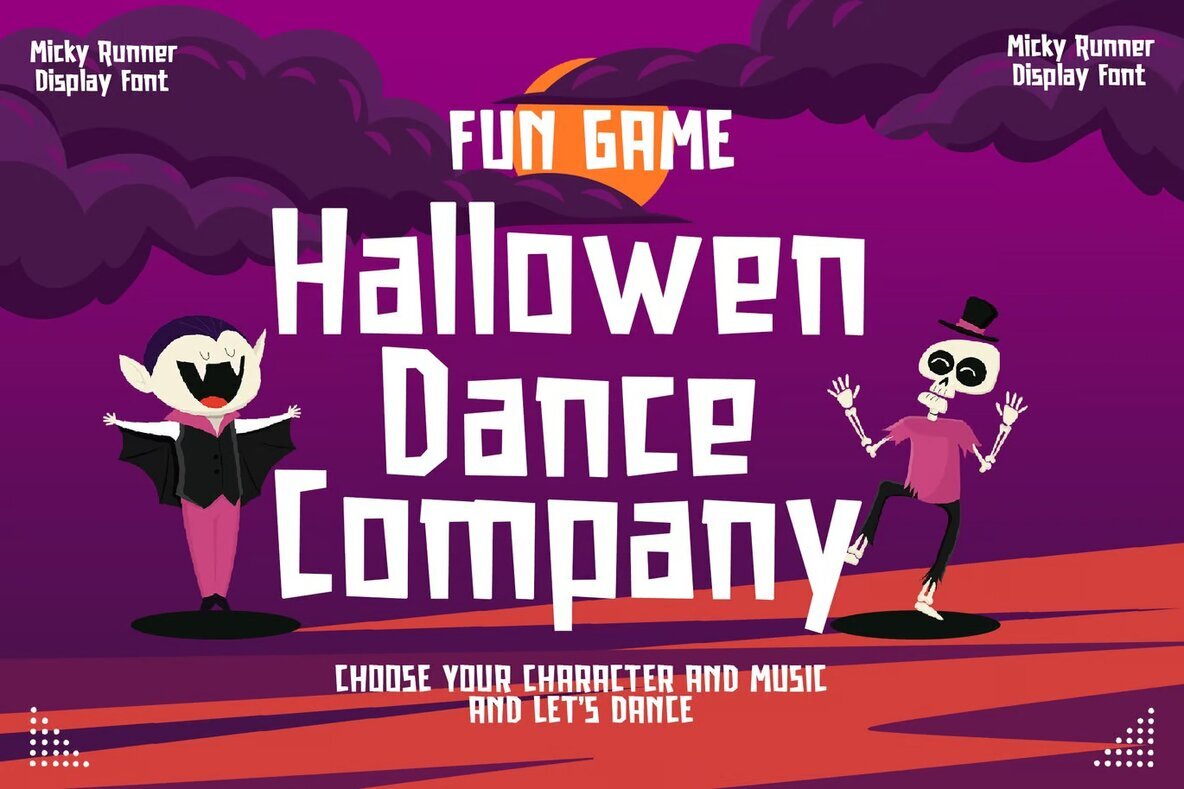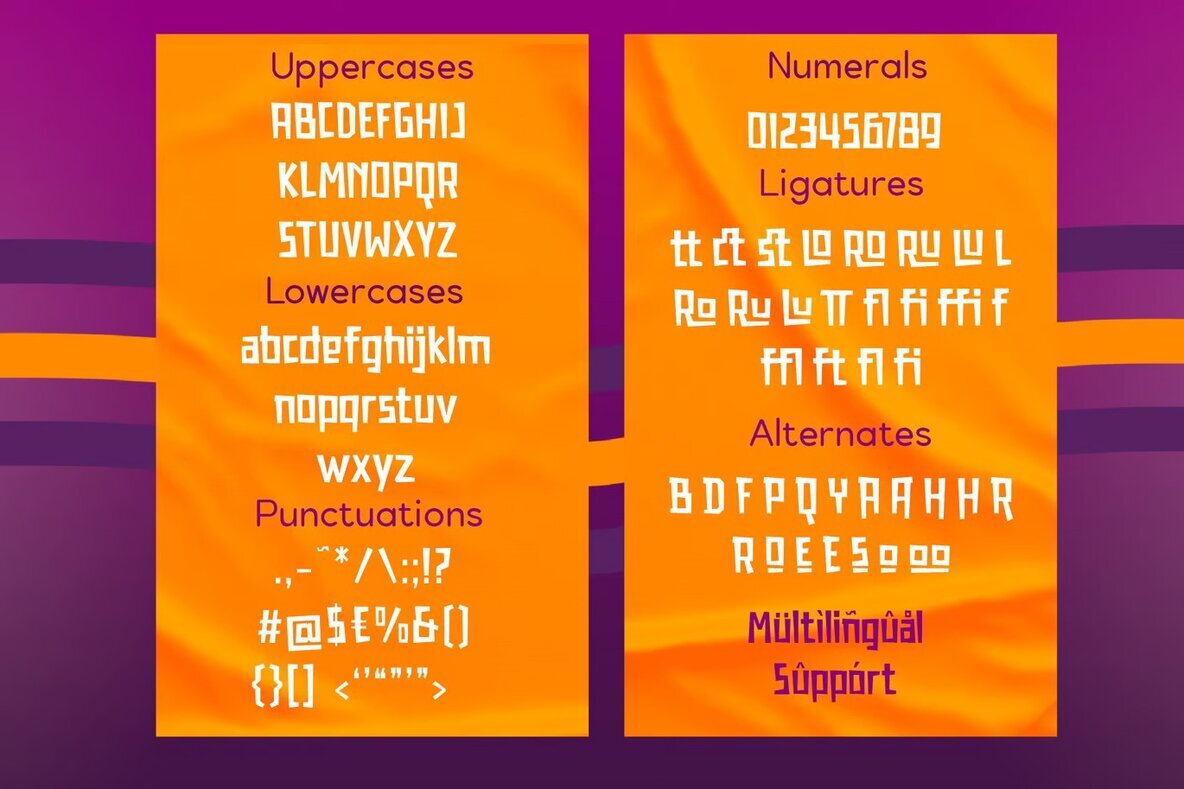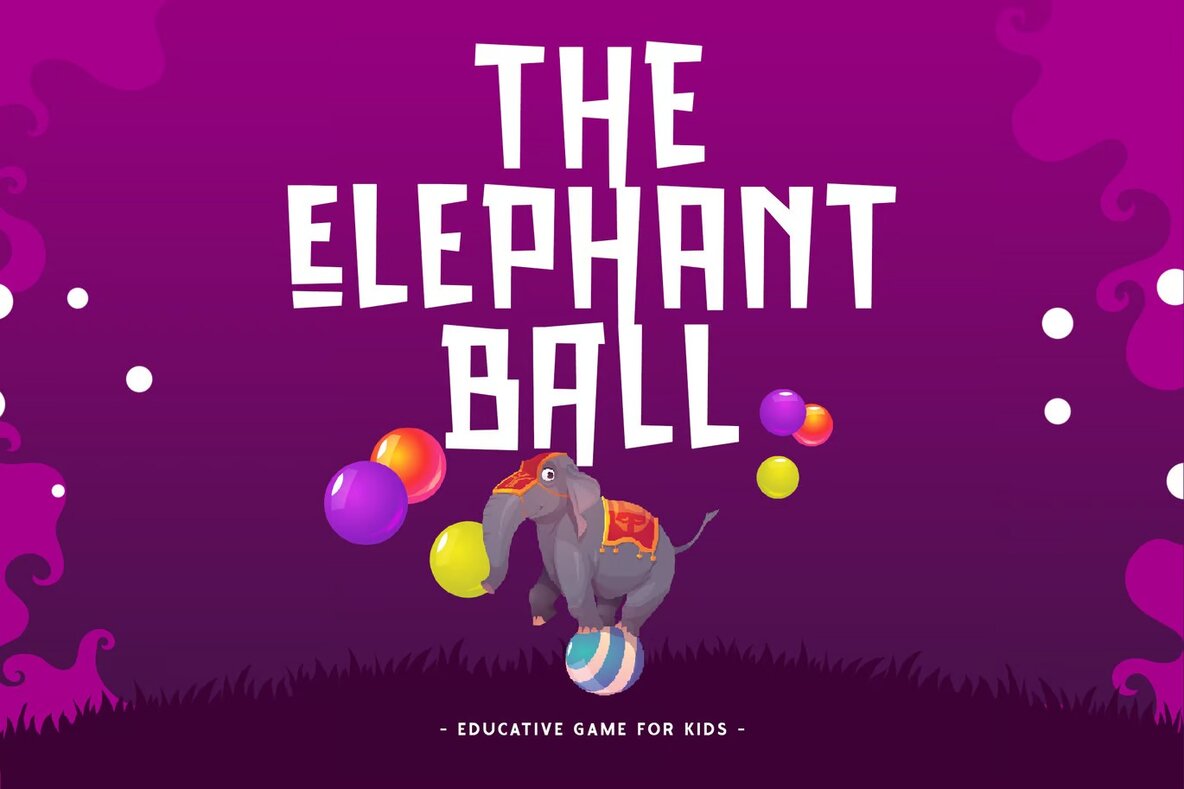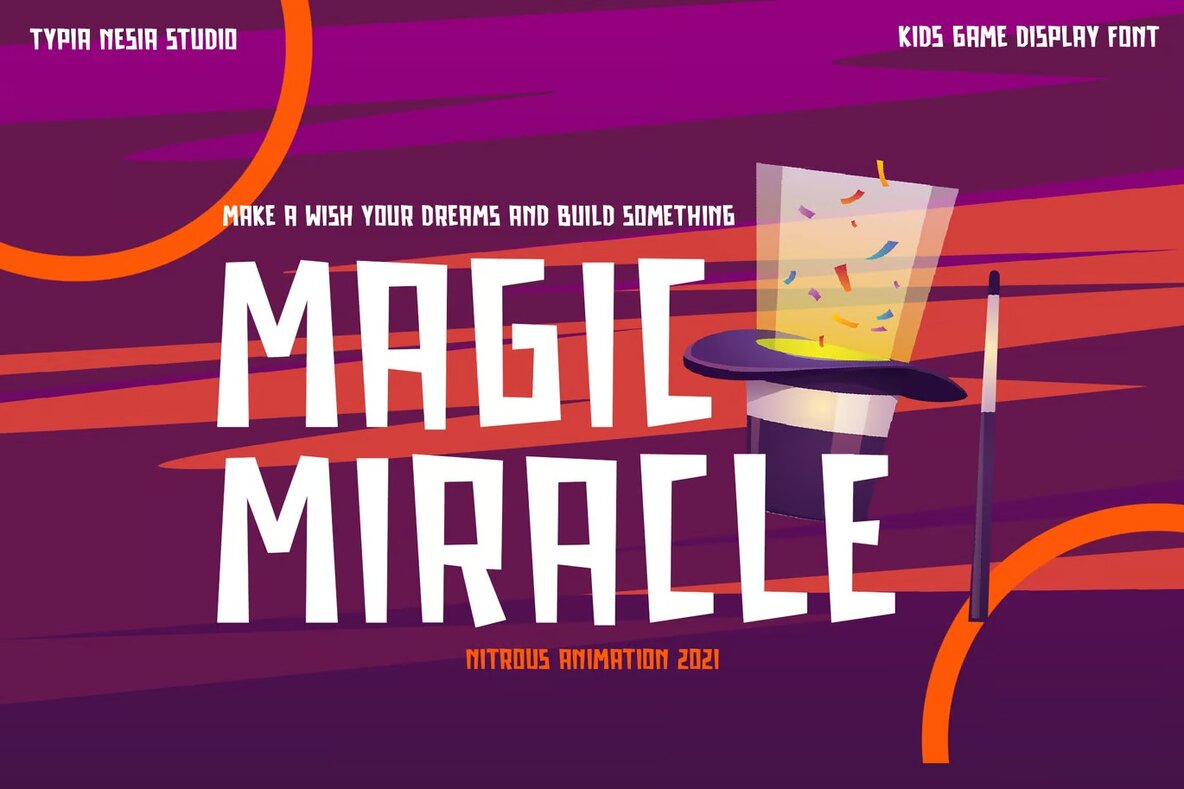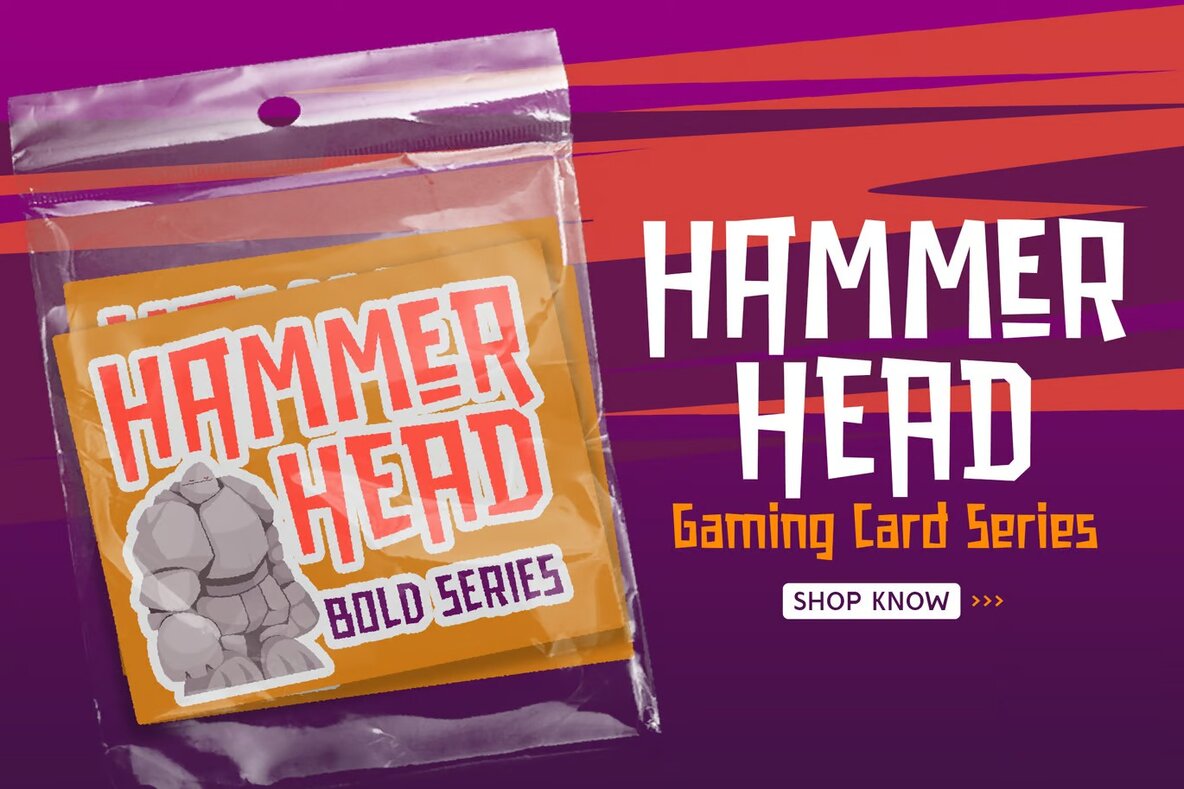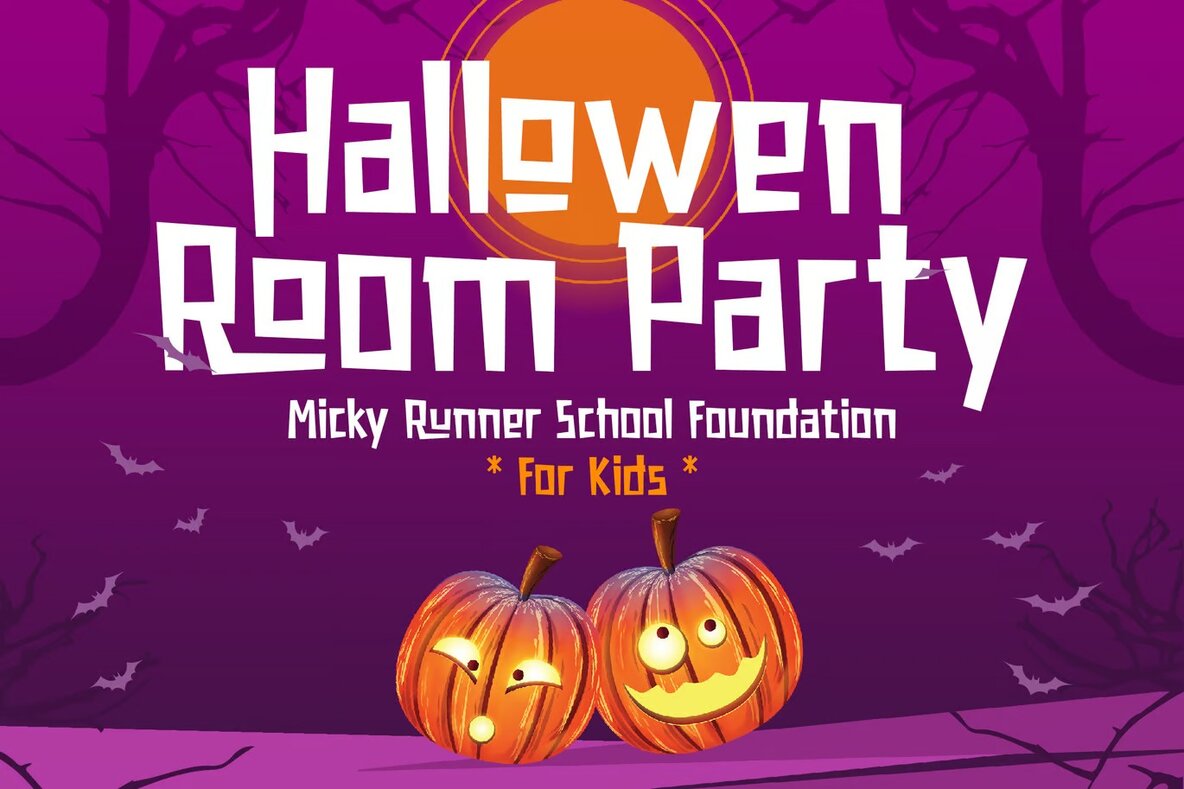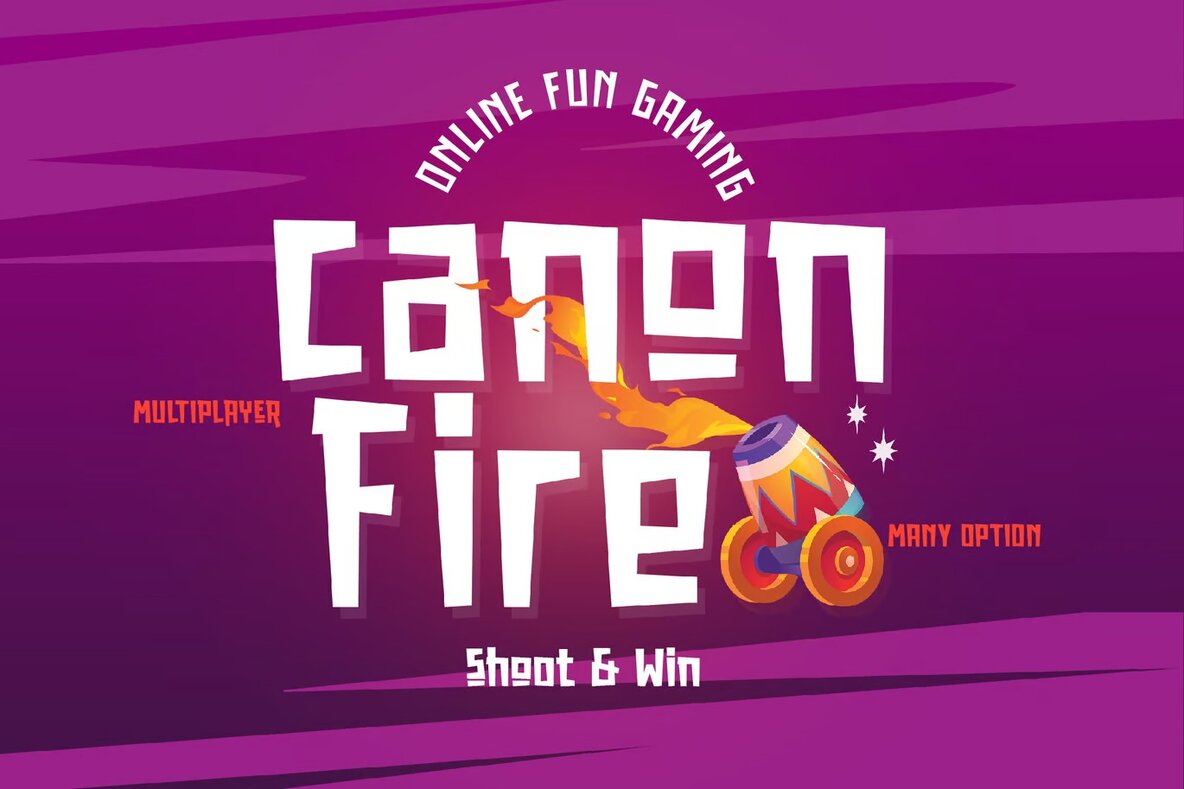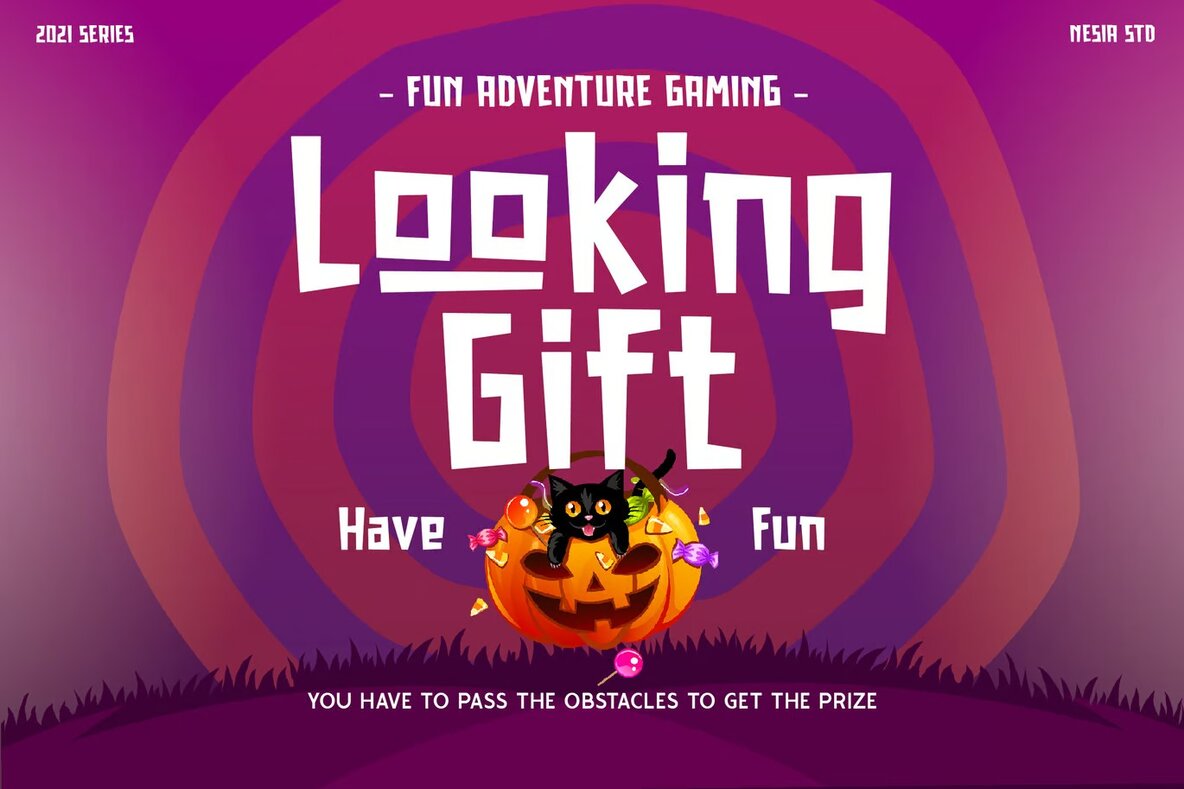
Micky Runner Font
Micky Runner is a playful and unique display font ideal for various design applications. Designed for projects that demand a blend of fun and horror themes, this font is perfect for logos, branding, and modern advertising design. Its whimsical yet spooky style makes it an excellent choice for cartoons, animations, and kid books, adding an engaging twist to your creative works.
Whether you're designing posters, book covers, or editorial layouts, Micky Runner offers a distinctive look that captures attention. Additionally, it fits well with personal projects like custom mugs, pillows, and t-shirts, where hand-lettered aesthetics are a desired element. Embrace the fantasy horror vibe with this font for an intriguing and entertaining visual impact.